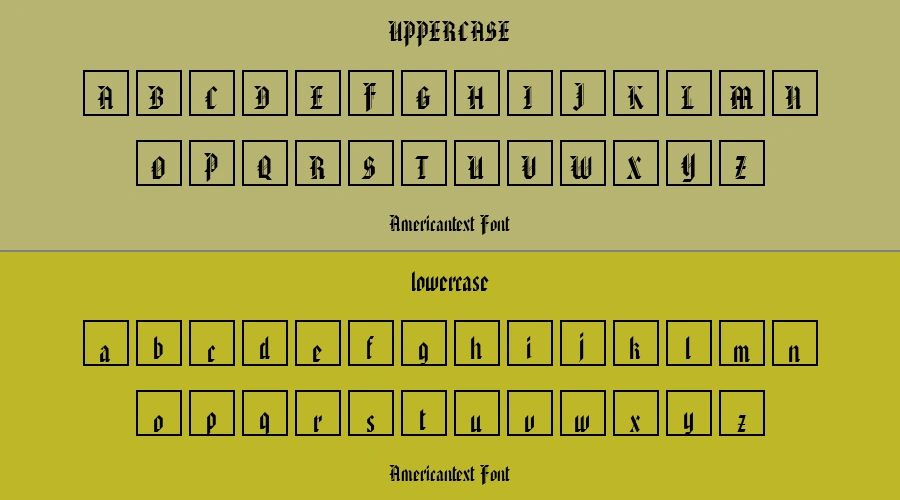
About Americantext Font
Americantext Font represents a sophisticated approach to type design, balancing decorative alternates with uniqueness. Perfect for advertising campaigns, this font family showcases impressive consistency and market appeal throughout its character set. Designers appreciate its versatility and reliability.
Designers will appreciate nuanced touches including precise joints and standard ligatures, adding sophistication to any project. These features become apparent in brand statements, where brand recognition matters most. The careful treatment of descender depth and historical reference ensures optimal performance.
Americantext Font |